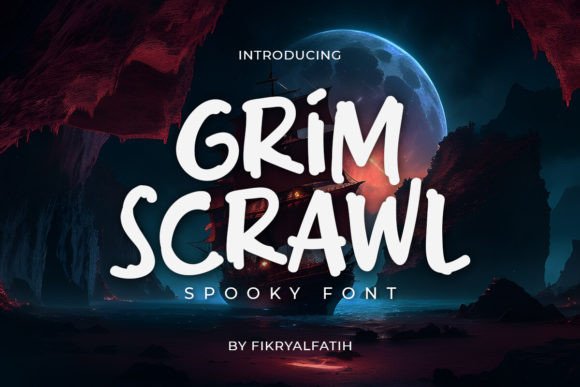
Journey into the realm of darkness and intrigue with Grim Scrawl Font, the ultimate display font family designed to make your Halloween creations hauntingly delightful. Crafted with precision and infused with the spirit of the season, Grim Scrawl offers a captivating combination of spookiness, horror, and fear that will leave your audience spellbound.
Unleash your creativity and let Grim Scrawl Font weave its enchantment into your Halloween posters and flyers, creating an eerie ambiance that will send chills down the spines of all who behold it. Its spine-tingling characters, reminiscent of haunted houses and creaking doors, will transport you to a realm where imagination runs wild.
Beyond Halloween, Grim Scrawl Font possesses a versatility that knows no bounds. Its unique aesthetic lends itself perfectly to a multitude of creative endeavors, including posters, labels, logos, movie titles, greeting cards, and even novels. Let your imagination run wild as you explore the endless possibilities that this captivating font has to offer.
With Grim Scrawl Font, you hold the power to transform your designs into captivating masterpieces. Embrace the thrilling mystery that surrounds this font and embark on a creative journey that will leave your audience trembling with delight. Let Grim Scrawl Font paint the perfect picture of fear and fascination in your upcoming Halloween projects and beyond.